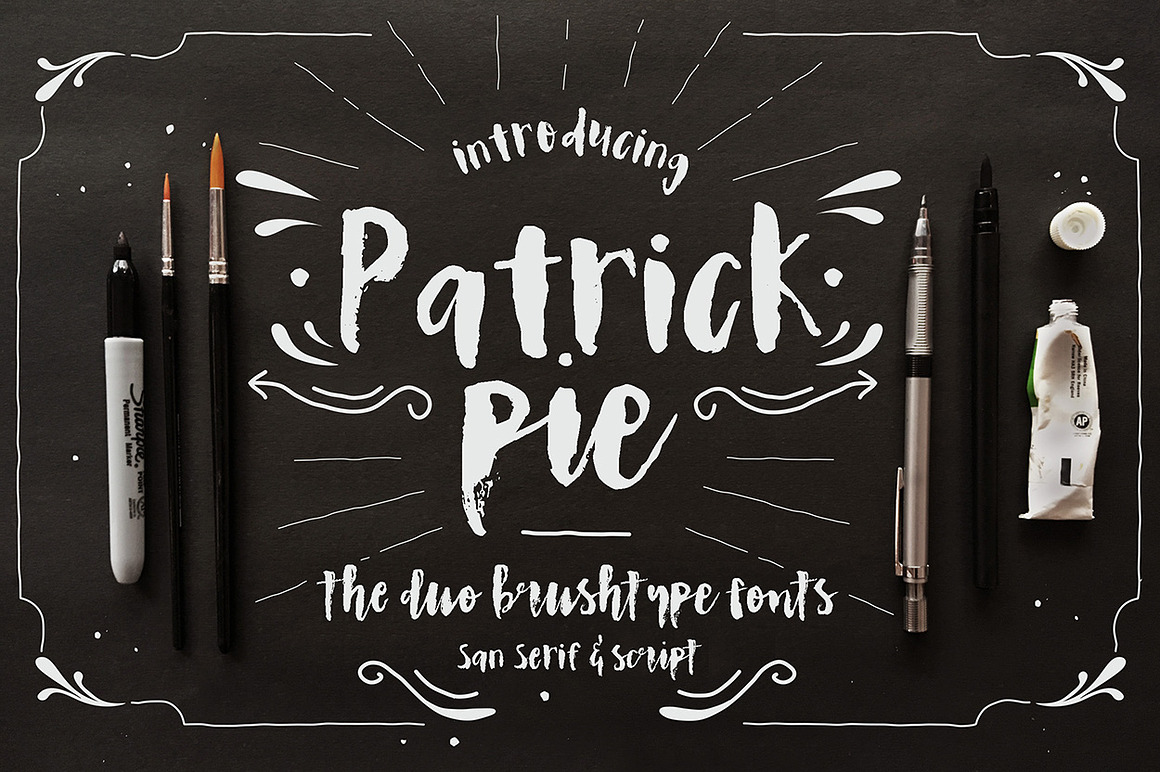
Patrick Pie Script Font
Patrick Pie Script Font is perfect for bakery branding, restaurant menus, food packaging, cafe signage, cookbook covers, culinary blog headers, dessert shop advertisements, and artisanal product labels.
What makes Patrick Pie Script Font exciting is its playful yet sophisticated handwritten style that evokes warmth and homemade charm. The font's organic curves and friendly letterforms create an inviting atmosphere that perfectly captures the essence of comfort food and artisanal craftsmanship. Its unique character variations and natural flow make every word feel personally crafted, adding authenticity to any culinary or lifestyle brand.
The Patrick Pie Script Font family includes regular weight with uppercase and lowercase letters, numerals, punctuation marks, and special characters. Advanced versions may feature stylistic alternates, ligatures, and decorative elements that enhance creative possibilities for food industry professionals and designers.
The handcrafted appearance of Patrick Pie Script Font makes it particularly effective for artisanal food brands, farm-to-table restaurants, and boutique bakeries. Its excellent legibility ensures menu items and product descriptions remain clear while maintaining the charming, handwritten aesthetic that customers associate with quality and authenticity.
Food entrepreneurs and graphic designers value how Patrick Pie Script Font effortlessly combines rustic charm with professional polish. The font's balanced proportions and consistent rhythm create cohesive brand materials while preserving the personal touch that distinguishes small businesses from corporate competitors.
The versatile nature of this typeface extends beyond food applications to lifestyle brands, craft businesses, and creative ventures seeking approachable yet refined typography. Patrick Pie Script Font Free Download provides designers with a valuable tool for creating engaging, personality-rich designs that resonate with audiences seeking authentic, handcrafted experiences in today's digital marketplace.